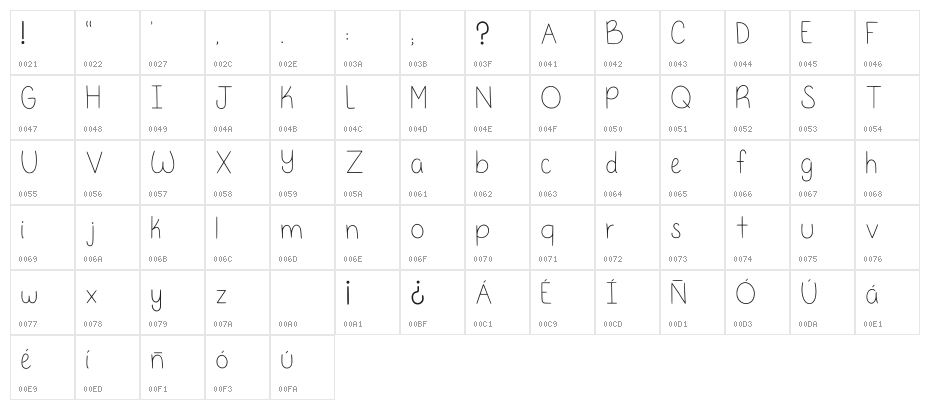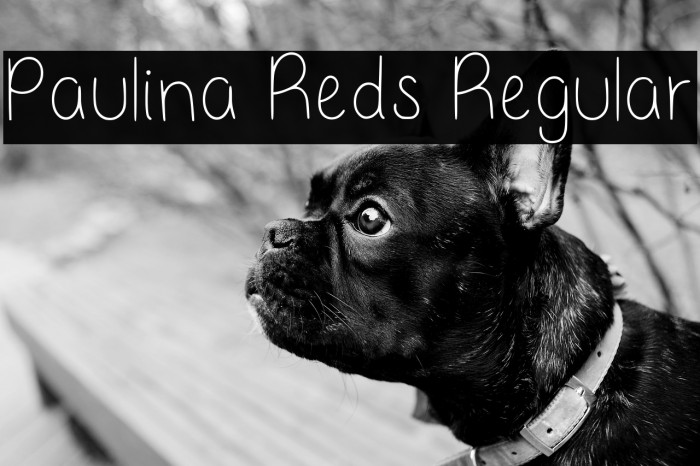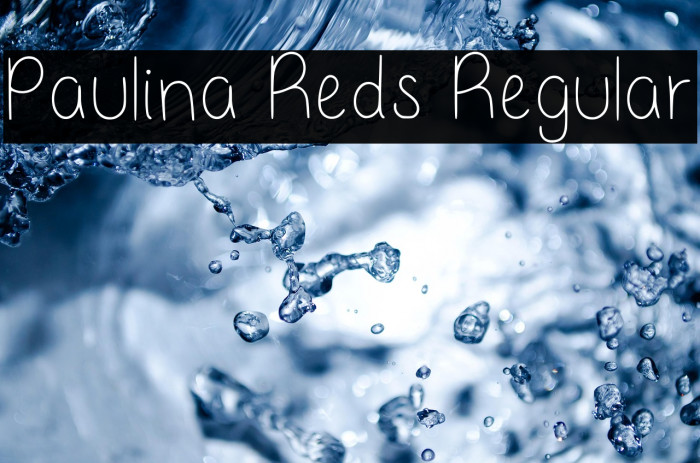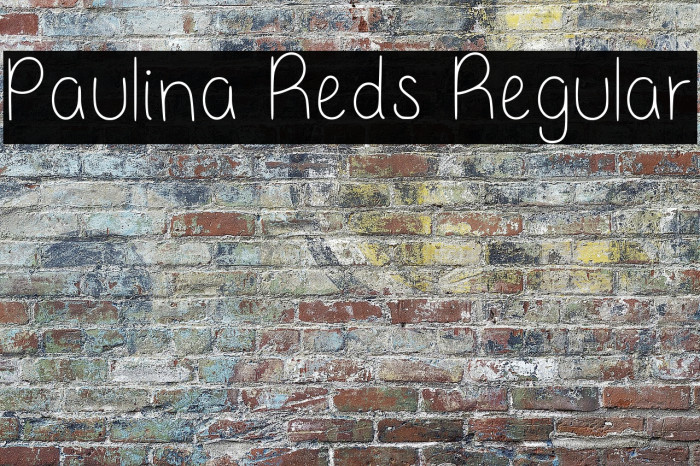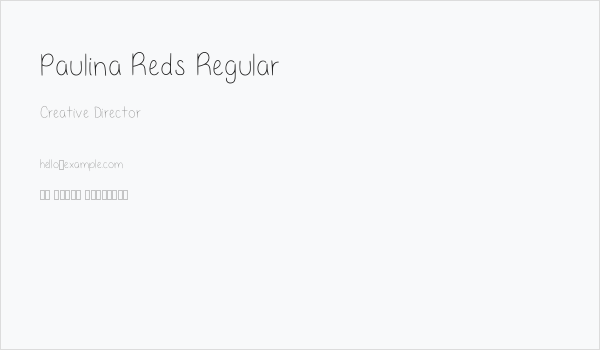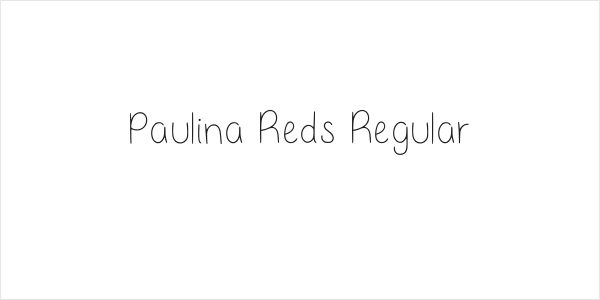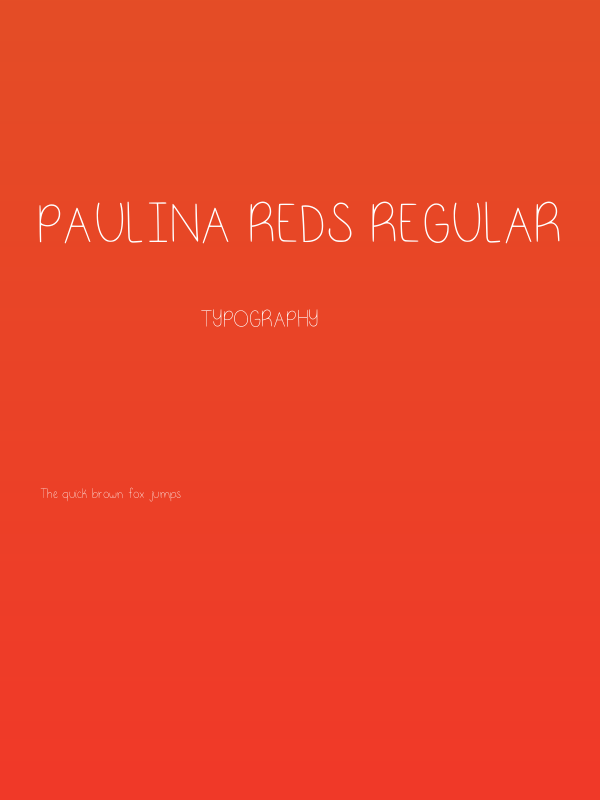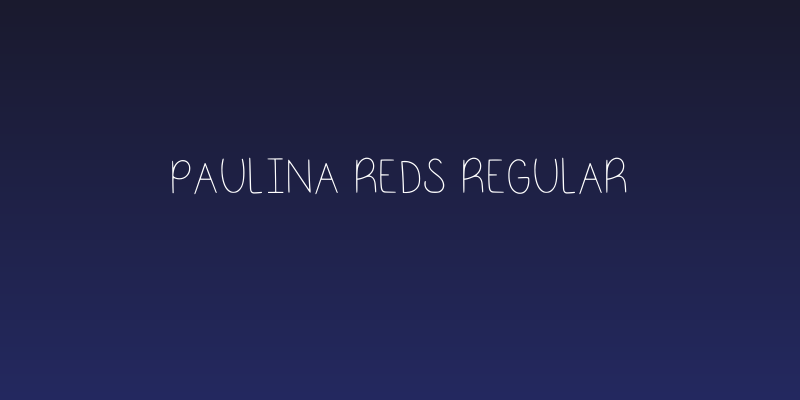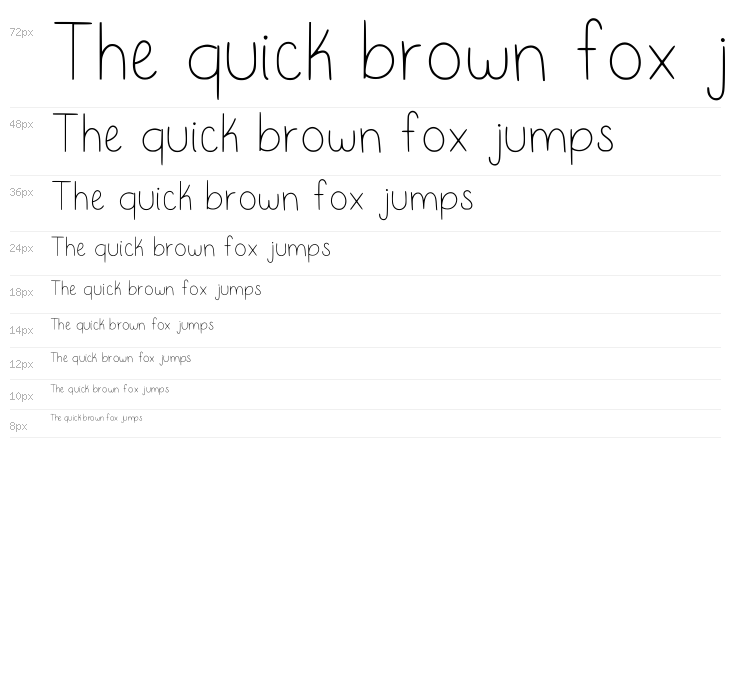
Paulina Reds Regular Font
Paulina Reds Regular Description
A playful, handwritten font with a casual and friendly appearance. The characters are slightly irregular, adding a personal touch.
| Overall Style | Casual, Friendly |
| Proposed Projects | Greeting cards, children's books, informal invitations. |